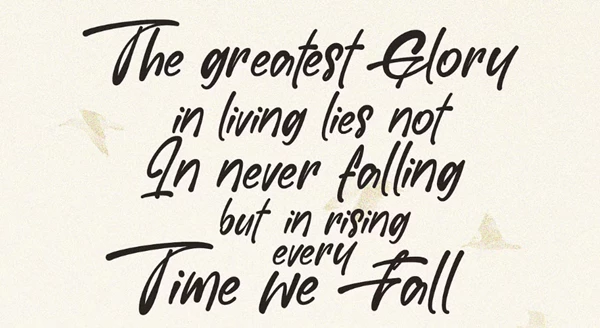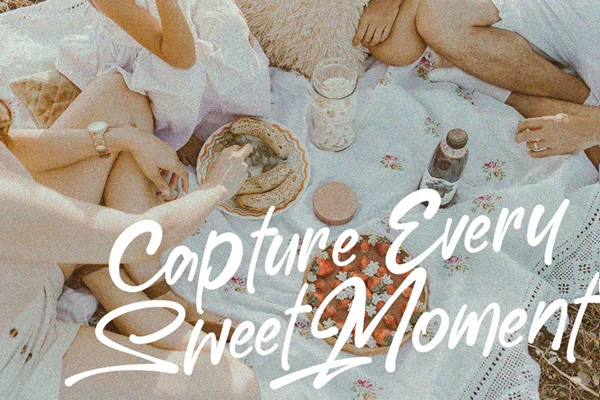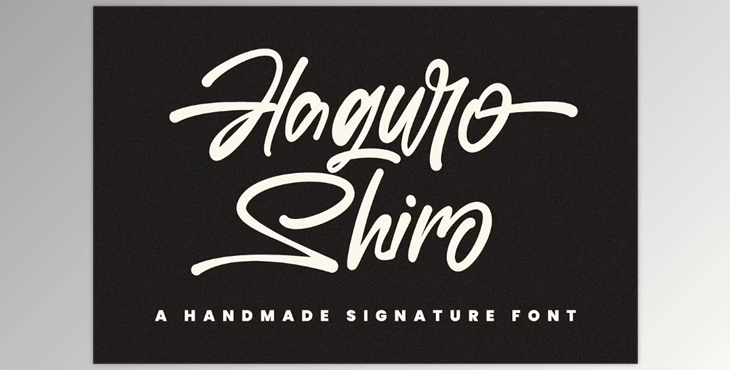
Haguro Shiro Signature Handmade Font:
With the Haguro Shiro Signature Handmade Font, your design projects will look more authentic due to the handcrafted appeal it brings. It is well-fitted for logos, stationery, and other creative projects where a personal touch is of necessity. This font also caters to different styles as it comes with extra characters and ligatures.